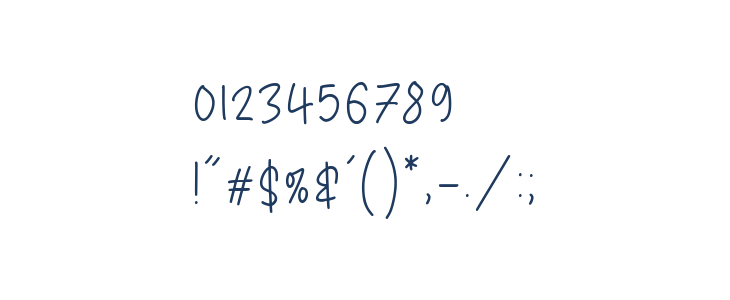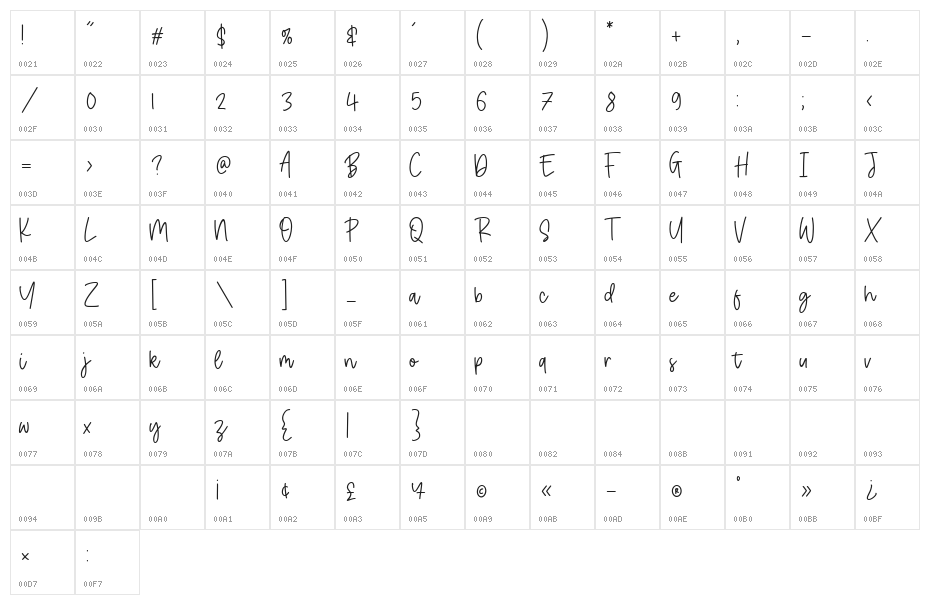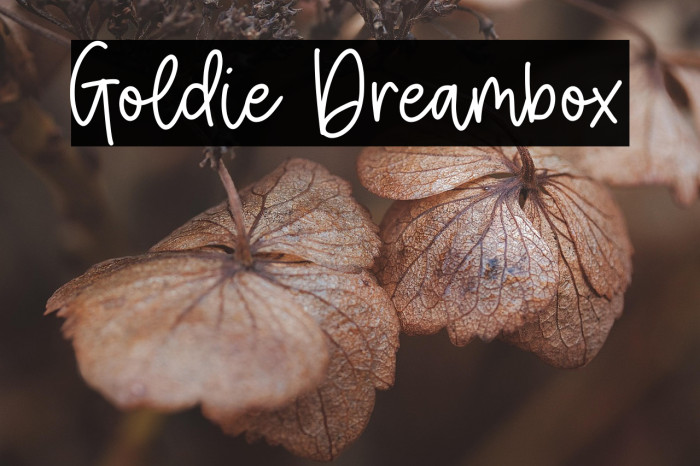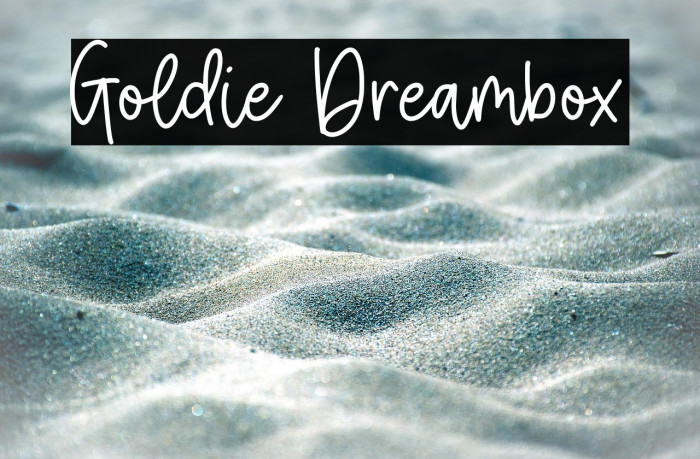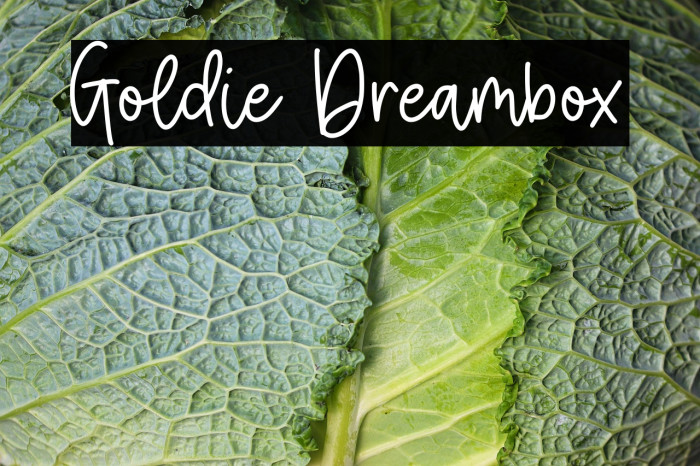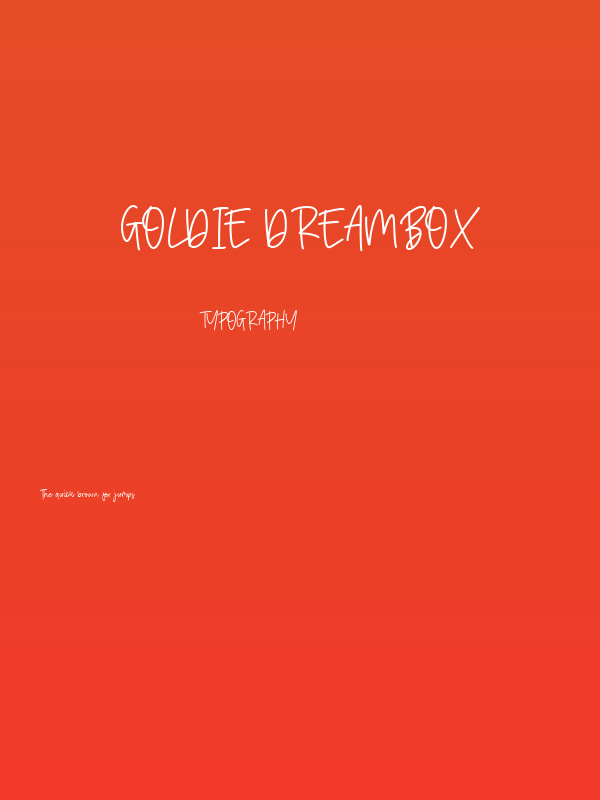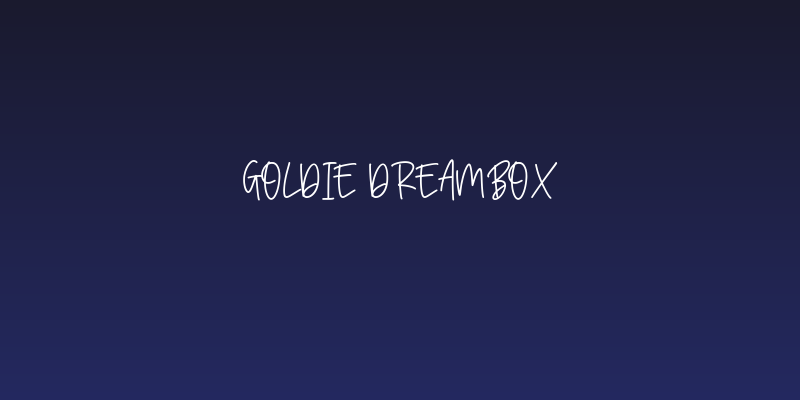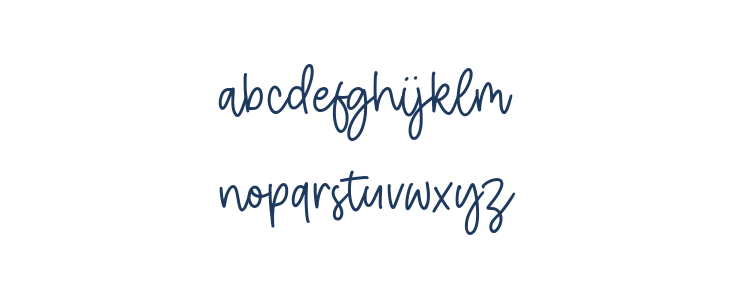
Goldie Dreambox Font
Goldie Dreambox Description
This font features a playful and casual handwritten style, characterized by its fluid and organic letterforms. The strokes are smooth and slightly irregular, giving it a personal and approachable feel. The uppercase letters are tall and slightly narrow, while the lowercase letters maintain a consistent flow with rounded edges. Numbers and special characters follow the same handwritten aesthetic, ensuring a cohesive look across all text. This font is ideal for projects that require a friendly and informal touch, such as invitations, greeting cards, or personal branding.
Overall StyleCasual
Use CaseHeadlines, Logos, Invitations
Proposed ProjectsIdeal for invitations, greeting cards, personal branding, and informal communications.